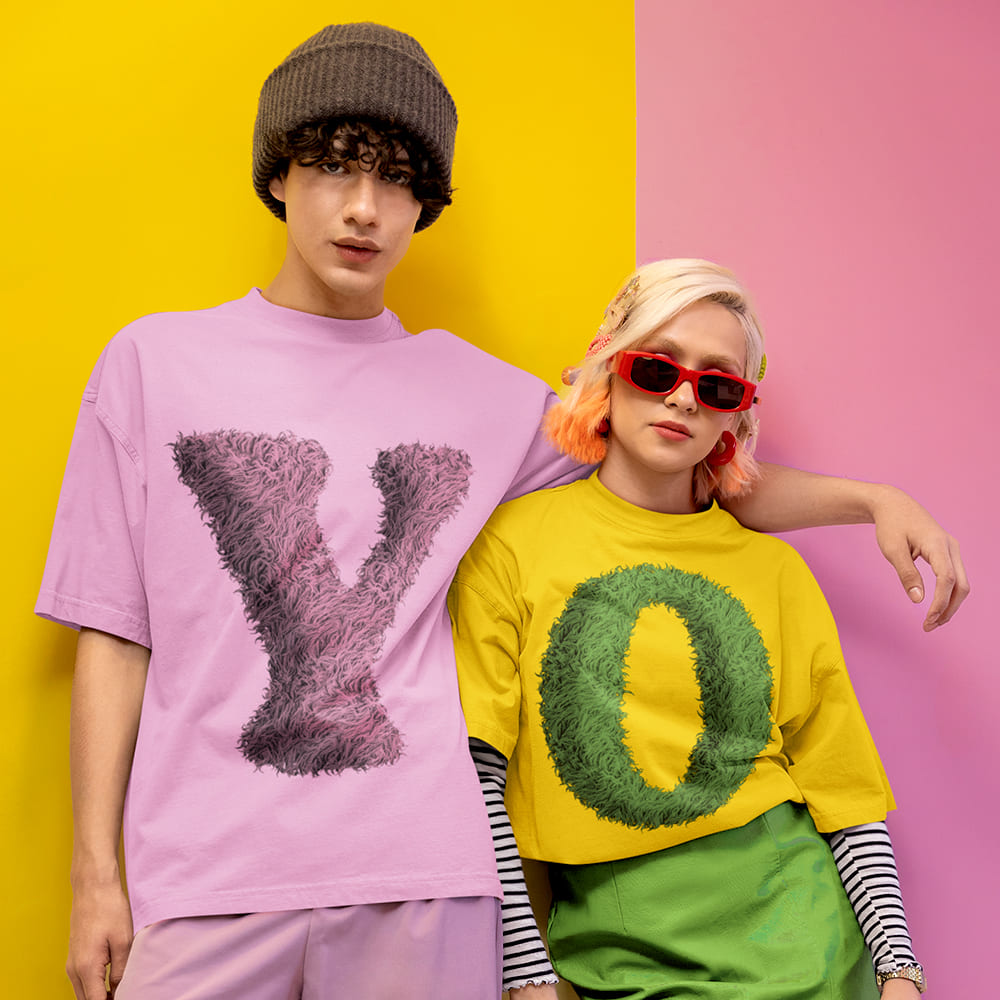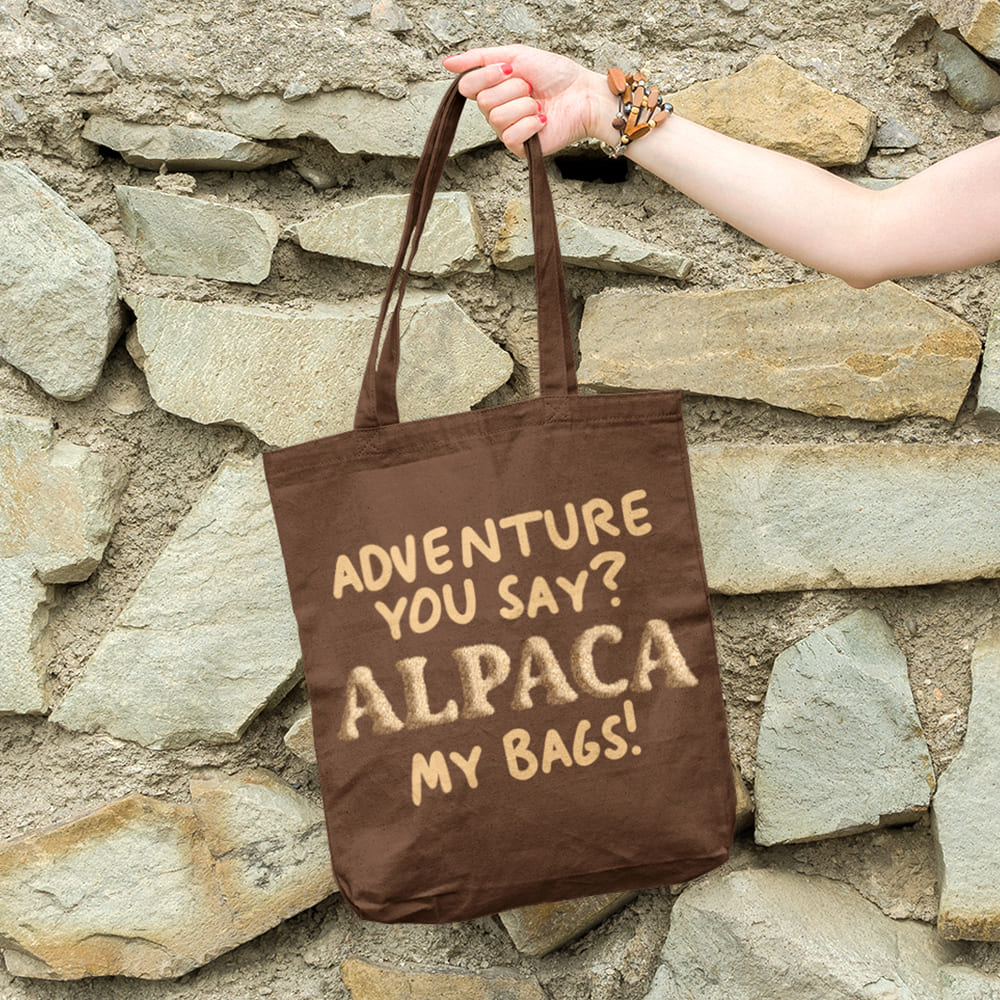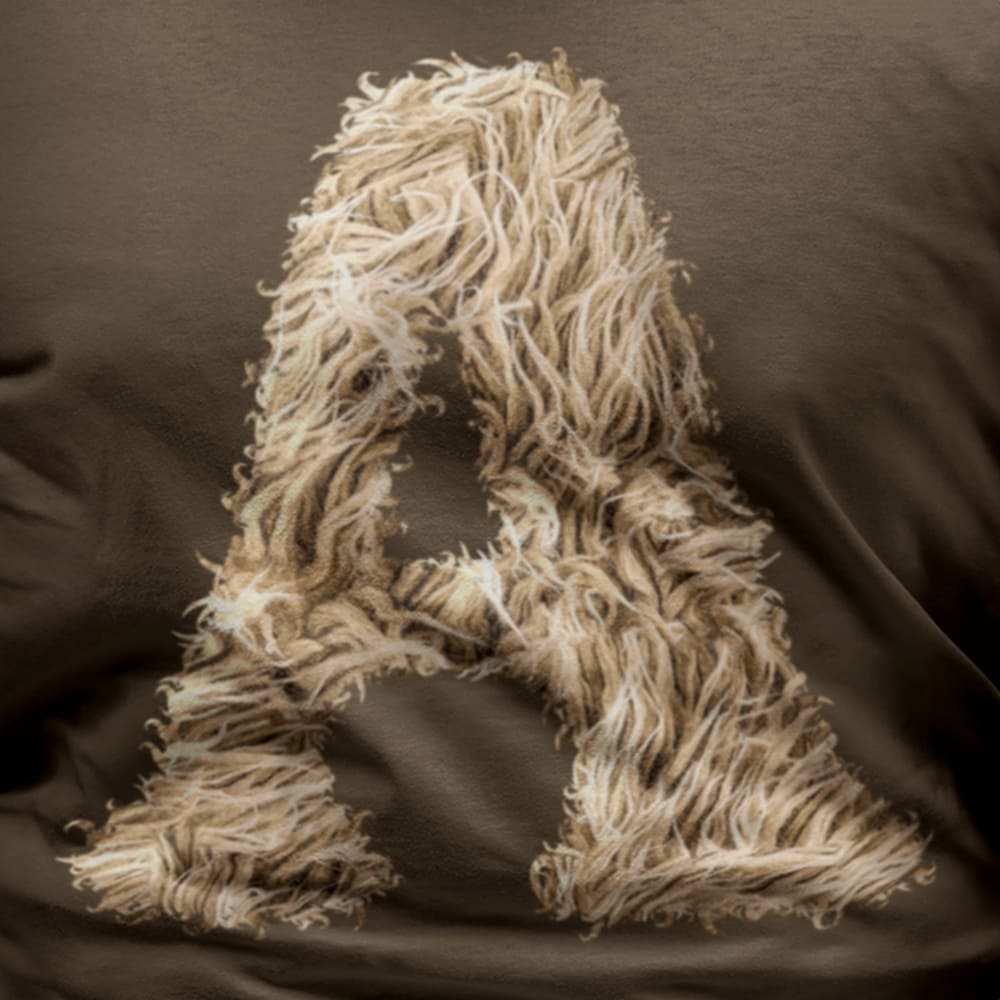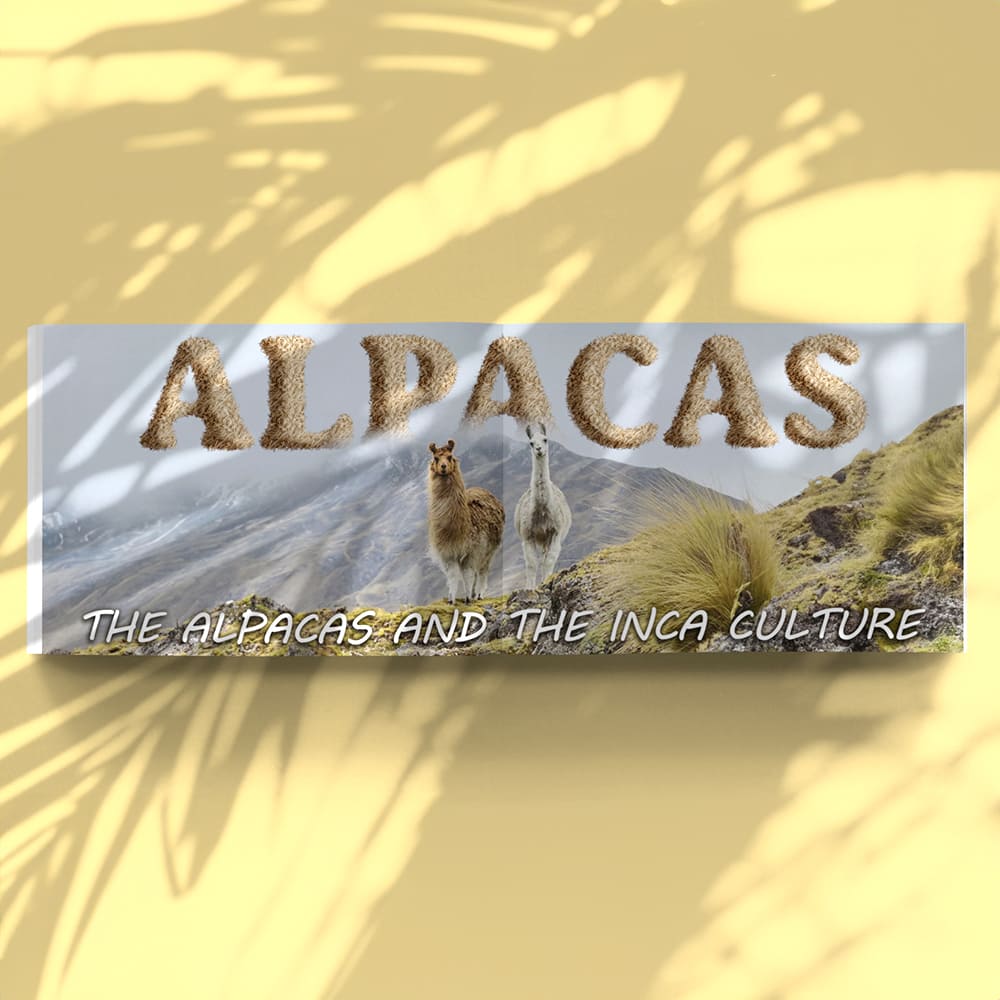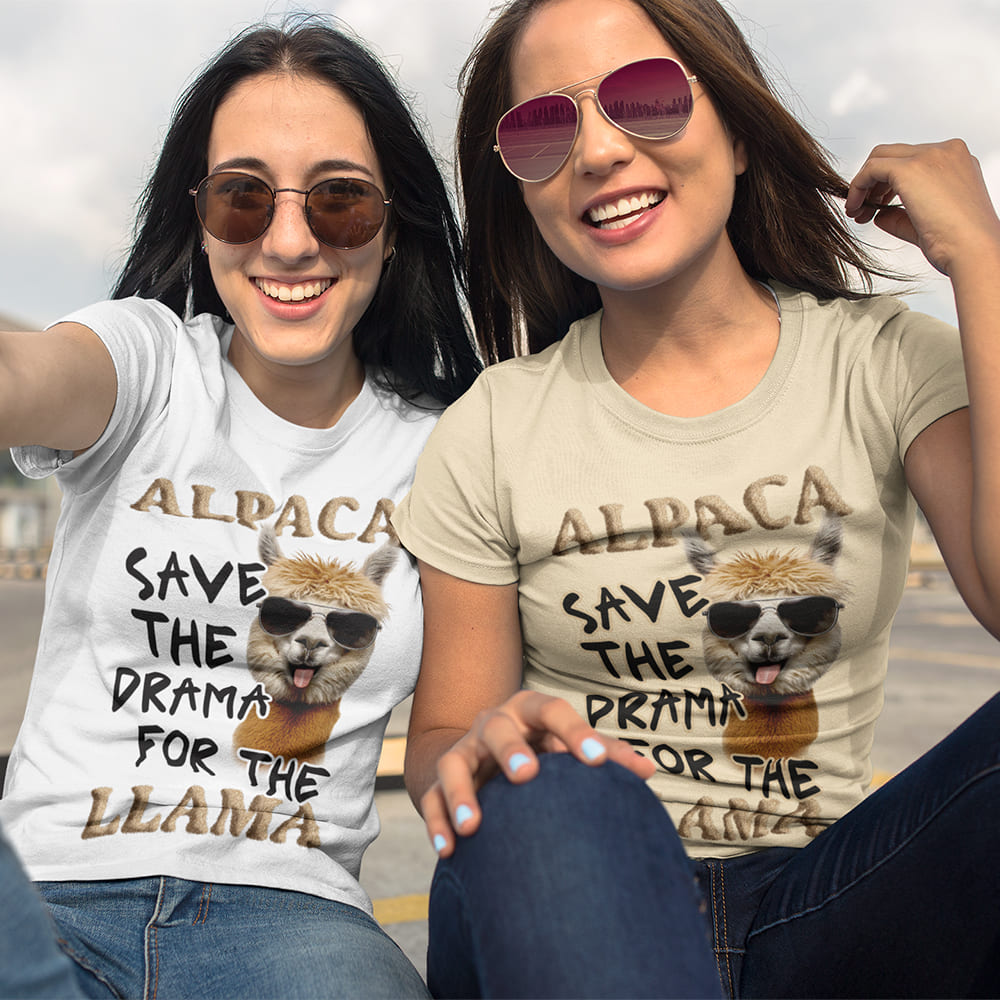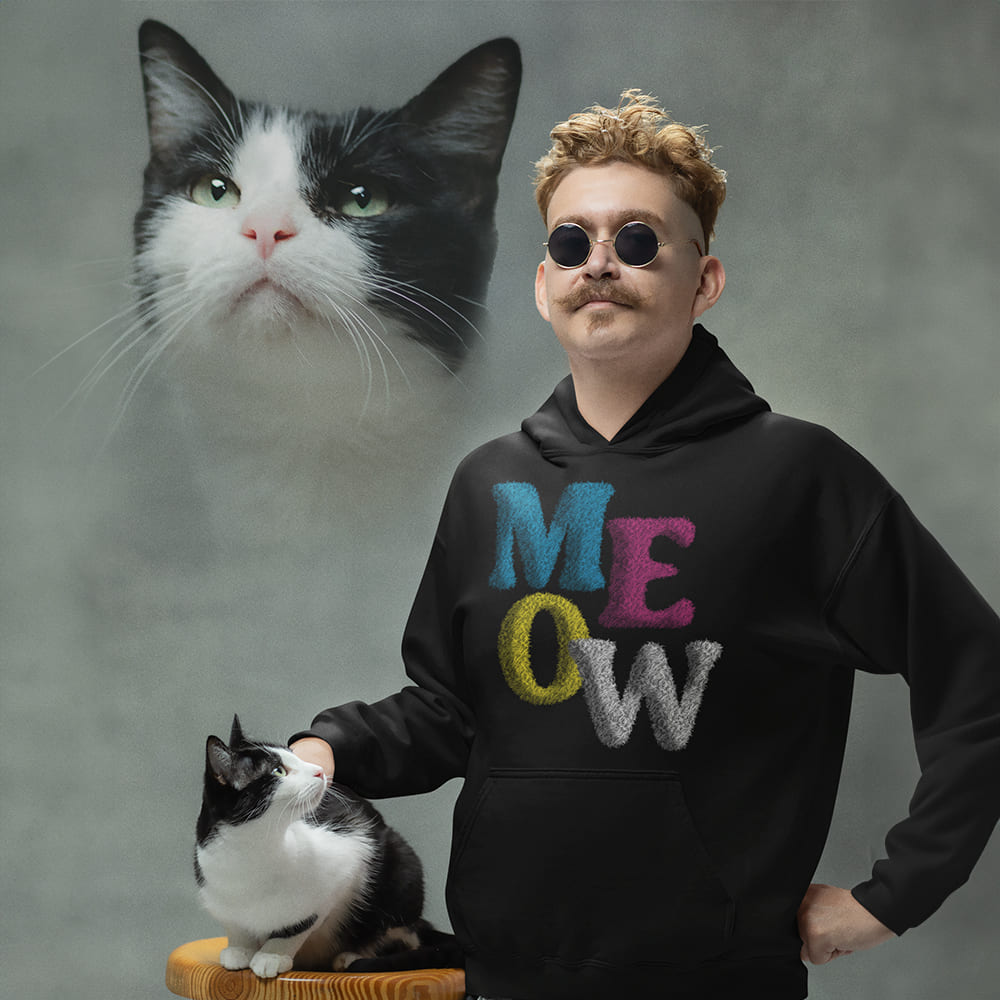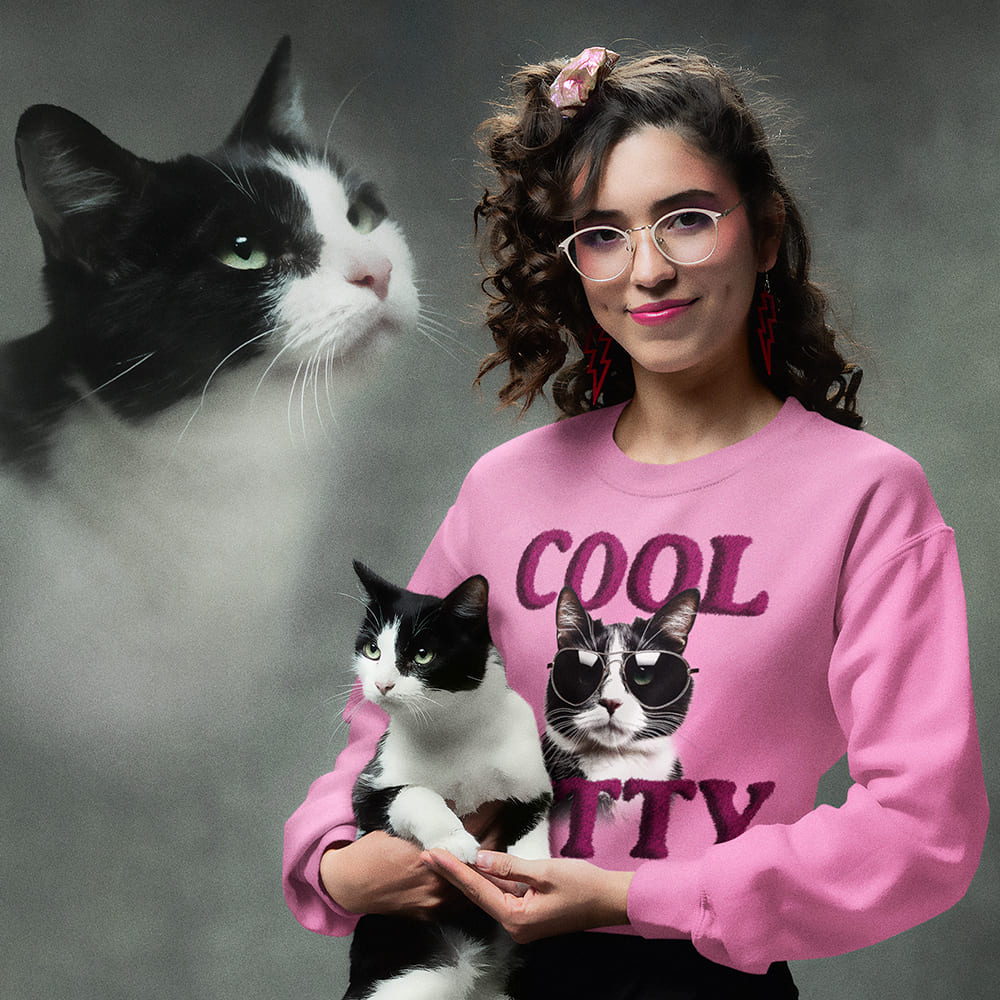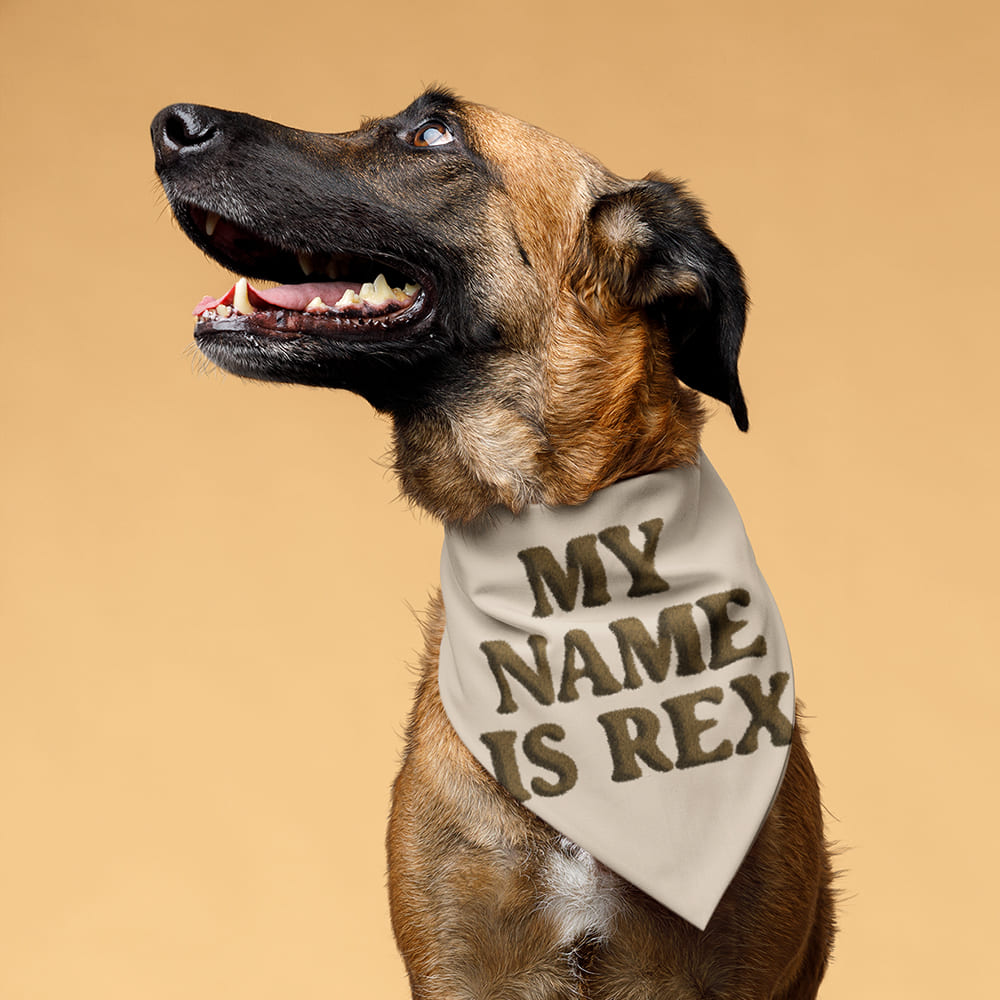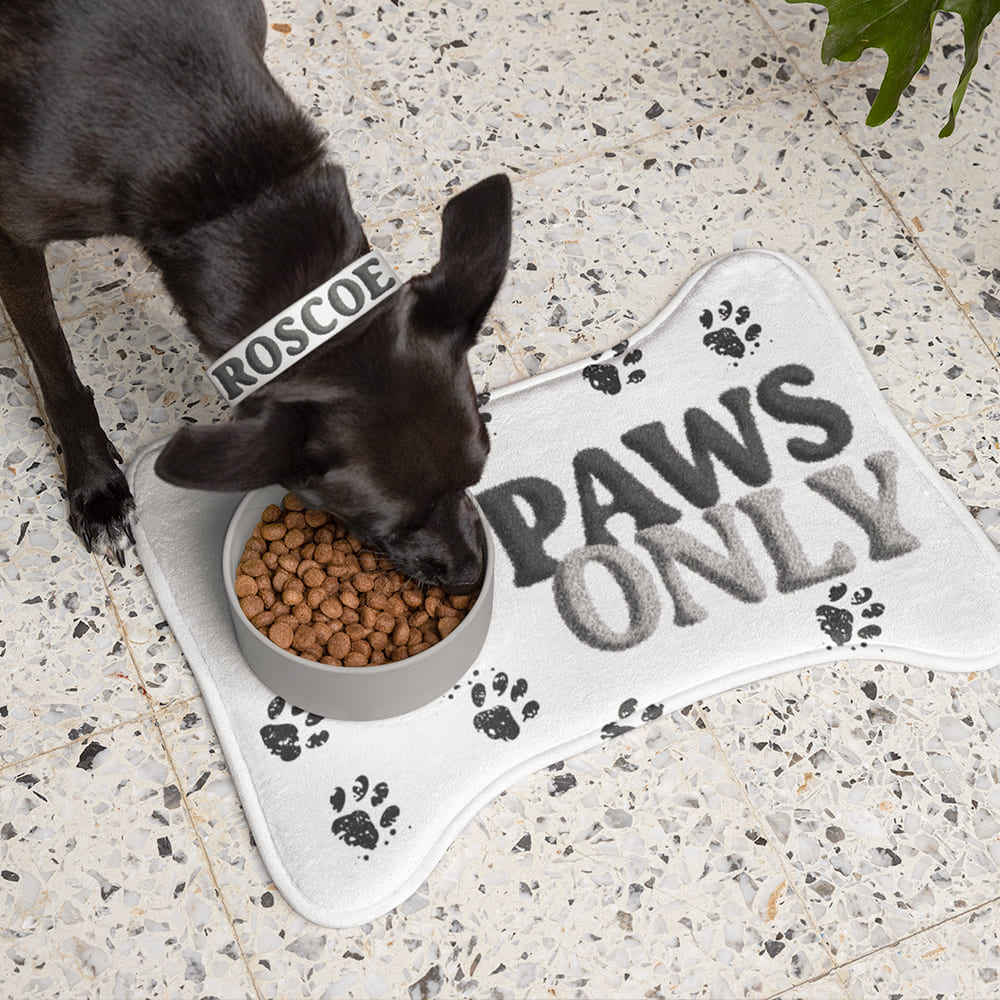
Fur Font
Fur Font: Wild, Fluffy, Untamed 🦍🐕🦥🦙
Do you love the raw, the wild, the natural? Then the Fur Font is exactly what your design needs! Inspired by the diversity of the animal kingdom, this font brings soft, realistic fur textures straight to your screen. Whether fluffy like polar wolves, shaggy like bears, or sleek like wildcats – this font is pure nature unleashed!
Why Choose the Fur Font?
🔹 Real & Textured – With detailed fur aesthetics, this font looks so realistic you can almost feel it!
🔹 Perfect for Wild Designs – Ideal for animal lovers, outdoor brands, zoos, fantasy worlds, children's books, and gaming projects looking for a natural and adventurous touch.
🔹 Available in Multiple Colors – Whether tiger orange, snow white, deep black, or wolf gray, the Fur Font adapts perfectly to your concept.
🔹 Untamed Creativity – Whether soft and elegant or wild and powerful, this font makes a bold, animalistic statement in any design.
Bring Your Design to Life!
With the Fur Font, you bring untamed nature, soft fur, and wild beauty into your typography. A font for adventurers, animal lovers, and design hunters.
🔹 Feel the nature. Unleash the wild. Choose the Fur Font.